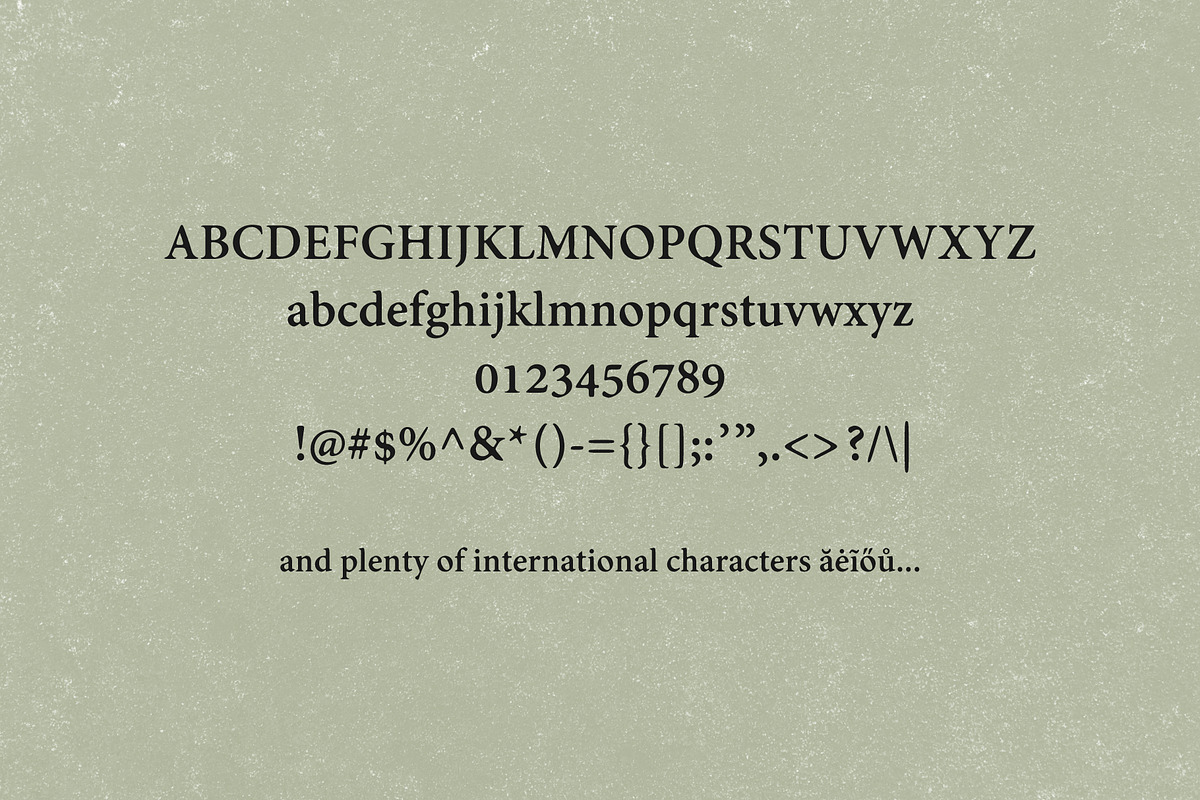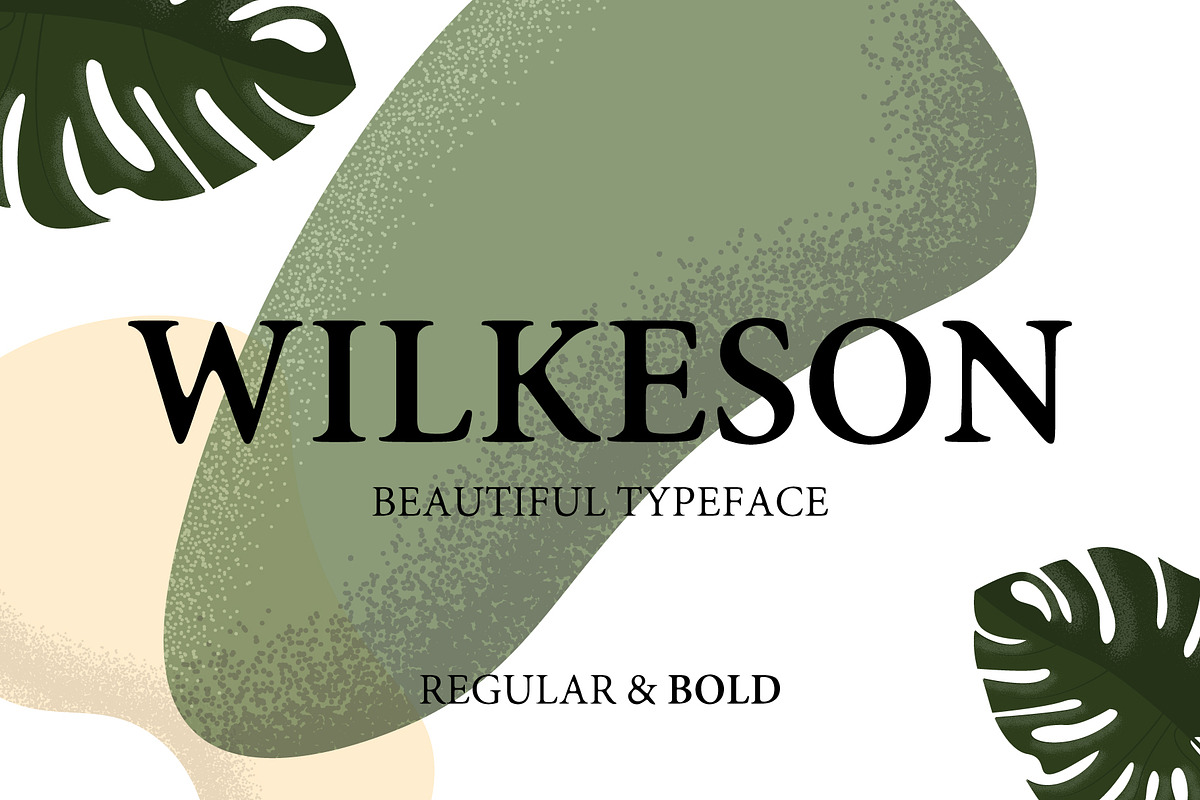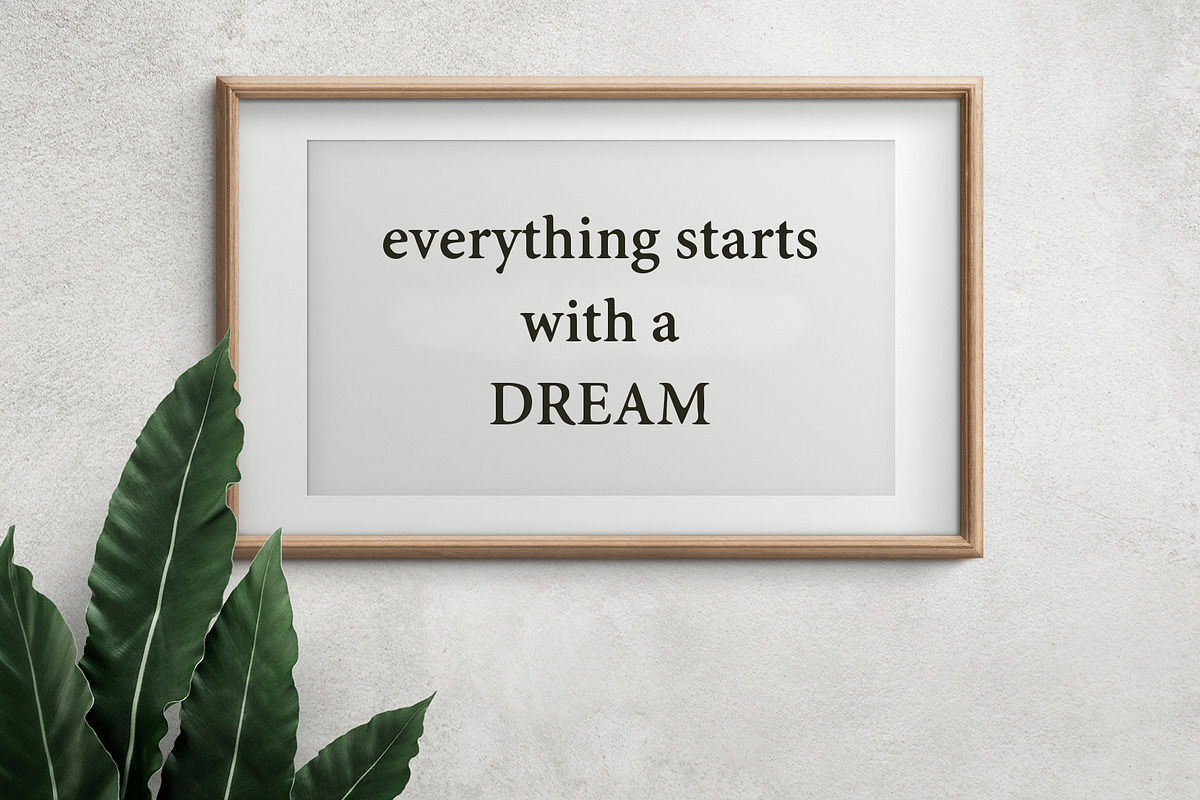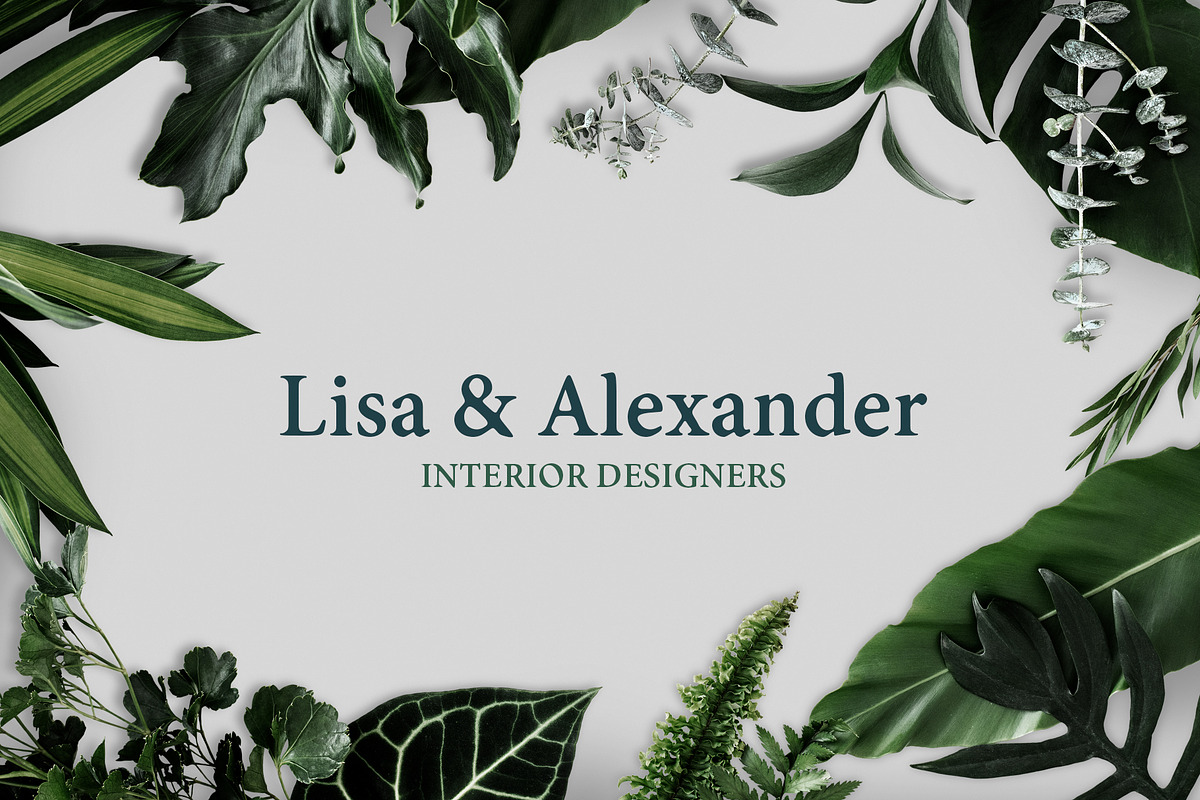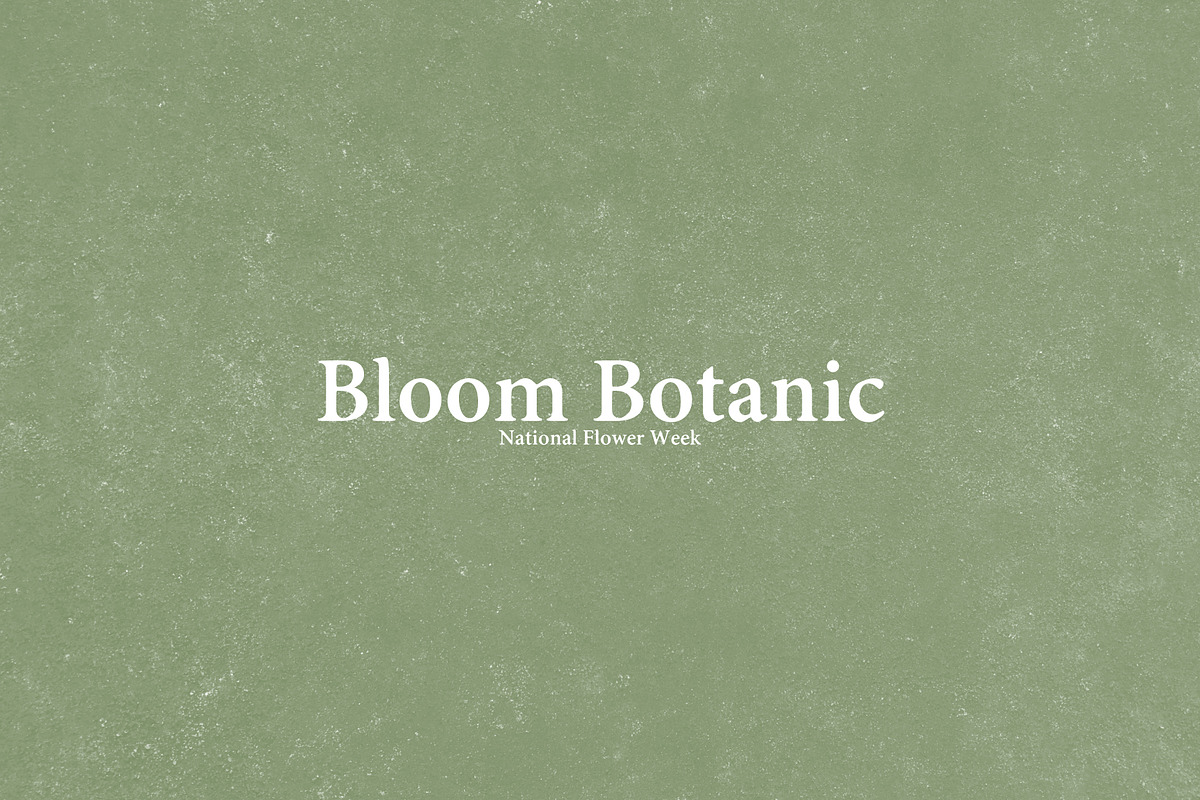
Wilkeson Modern Serif Typeface
Wilkeson is a modern serif font that is subtle, rounded and clean. It is great for mastheads, magazines, logos and headers. Use with simple script fonts like Amarna Script or Livvie (links below). The typeface has two fonts: Regular and Bold; and a massive 474 glyphs supporting 30+ languages. You'll definitely find what you're looking for.